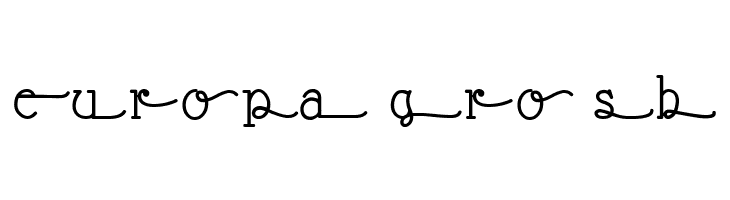
An elegant script font with intricate swashes and flowing letterforms.
A flowing, elegant script font with ornate swashes and flourishes.
An ornate, calligraphic font with intricate swashes and flourishes.
A decorative serif font with elegant swashes and flourishes.
A whimsical and artistic font with decorative swashes and curls.
A playful and elegant script font with whimsical swashes and flourishes.
A modern serif font with organic elements and playful swashes.